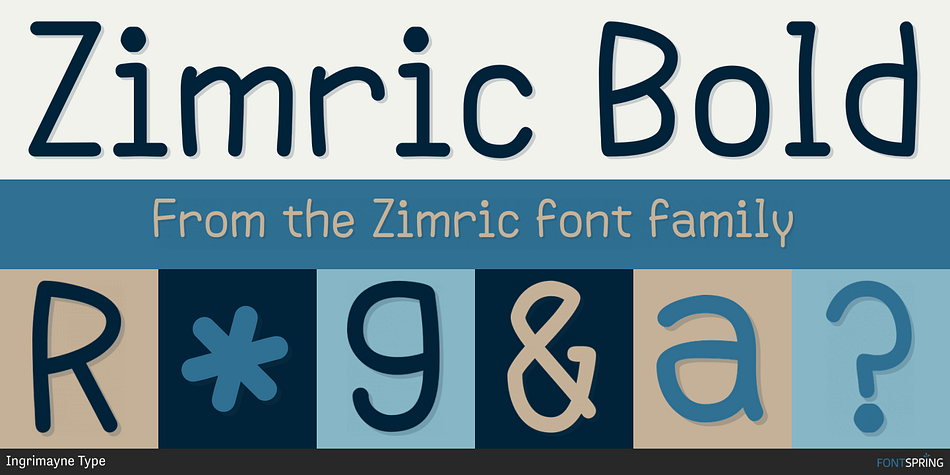
Zimric Bold
Designed by Robert Schenk, Zimric is a display sans font family. This typeface has twenty-eight styles and was published by Ingrimayne Type.
Zimric is a family with 28 styles. It has the look of neat hand printing. It is monoline and sans-serif, friendly and legible. The Zimric family has three widths, each width has four or five weights, and each weight comes in both upright and italic styles.